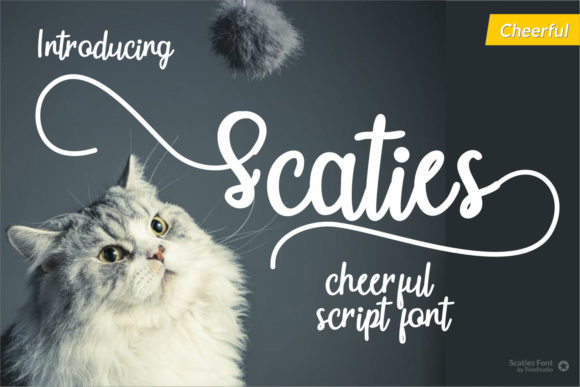
Introducing Scaties, the font of enchantment, a visual symphony that dances across your screens like a joyous celebration of life. Crafted by the masterful hands of Trim Studio, this script font is not just a collection of letters; it's an invitation to a world of whimsy and delight.
Scaties is more than just a font; it's an emotion, a feeling, a radiant expression of happiness and cheer that will transform your designs into captivating masterpieces. Its playful vibe, akin to the laughter of children on a sun-drenched meadow, will infuse your creations with an infectious energy that speaks to the heart.
Let Scaties be your artistic virtuoso, your maestro of mirth, guiding your designs toward a crescendo of smiles and cheer. Its enchanting characters, like twinkling stars in a midnight sky, will illuminate your words, making them shine with a brilliance that captivates and entrances.
With Scaties by your side, you'll discover a treasure trove of creative possibilities. Craft eye-catching posters that burst with vibrancy, design invitations that exude warmth and joy, or create branding that radiates positivity and light.
But Scaties is not just a visual treat; it's a practical marvel too. Its meticulously crafted curves and elegant flourishes ensure readability and clarity, making it the perfect choice for both digital and print projects. Experience the joy of effortless design as Scaties seamlessly adapts to your creative vision, enhancing every word and phrase with its inherent charm.
Unleash the magic of Scaties today and let your designs take flight. Its enchanting aura will transform your projects into captivating works of art, leaving an indelible mark on the hearts of your audience. Embrace the whimsical, celebrate the cheerful, and let Scaties guide you toward a design destiny filled with delight.